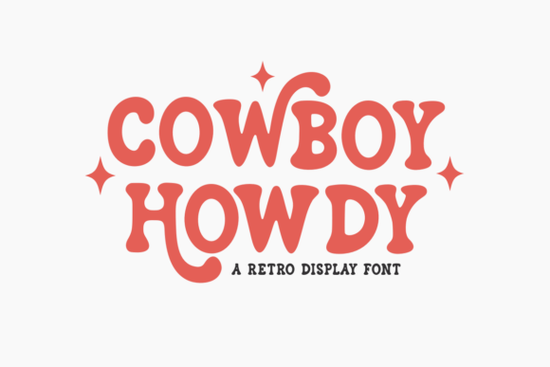
Finding the right western-style typeface can make or break a design. The Cowboy Howdy Font is a handcrafted retro display font with a distinctly rustic personality. It's built for designers, crafters, and small business owners who want their projects to carry that warm, nostalgic feel without looking outdated. Whether you're working on t-shirt designs, branding, or printable wall art, this font offers a solid mix of character and usability.
What makes Cowboy Howdy stand out among retro fonts?
Most retro or western fonts lean heavily on one look either they feel too cartoonish or too stiff. Cowboy Howdy finds a middle ground. Its letterforms have a hand-drawn quality that feels authentic, not overly polished. The curves are slightly imperfect in the best way, giving your text a crafted, human touch.
What really sets it apart is its alternate character feature. When you swap in alternate glyphs, you get subtle variations that keep repeated letters from looking identical. This matters more than people realize, especially in display text where every letter is visible at a large size. A design that says "HOWDY" looks noticeably better when each letter has its own slight variation.
If you're comparing options, fonts like Magic Retro offer a different retro direction more groovy and '70s-inspired while this retro display alternative leans into a bolder, stackable style. Cowboy Howdy, by contrast, is rooted in western Americana, which gives it a more specific mood.
What types of projects does this font work best for?
Cowboy Howdy is a display font, which means it's designed for headlines, titles, and short text not body copy. Here's where it fits naturally:
- T-shirt designs Western-themed or vintage-style tees benefit from its handcrafted look. Phrases like "Rodeo Queen" or "Desert Born" read well in this style.
- Quote prints and wall art Inspirational or farmhouse-style quotes pair nicely with its rustic tone.
- Tote bags and accessories Print-on-demand sellers can use it for seasonal or niche product lines.
- Branding for small businesses Think BBQ restaurants, ranch-style boutiques, country wedding vendors, or outdoor adventure brands.
- Greeting cards and invitations Especially for rustic weddings, country-themed parties, or holiday cards with a nostalgic twist.
For designers building out a collection of western or vintage styles, pairing it with something like this bold retro display option can give you more variety within the same aesthetic range.
How do the alternate characters work?
This is especially useful when you're designing:
- Monograms or single-word logos where every letter is on display
- Short phrases (3–5 words) where visual variety prevents the design from looking flat
- Large-scale prints where letter details are clearly visible
If you've worked with stacked display fonts before, you know how much alternates can change the feel of a design. The same principle applies here a few swapped letters can take a layout from plain to polished.
Which fonts pair well with Cowboy Howdy?
Because Cowboy Howdy has a lot of personality on its own, it pairs best with simple, clean supporting fonts. Here are a few directions worth exploring:
- A clean sans-serif for body text, subtitles, or taglines alongside Cowboy Howdy headlines.
- A simple serif for a more classic, editorial feel in wedding invitations or menu designs.
- A hand-lettered script if you want to keep the handmade aesthetic consistent. Just make sure the script is more delicate than Cowboy Howdy so the two don't compete.
A font like Aaksaraan Valeriana could serve as an elegant script complement, while this elegant option offers a different pairing route depending on your project's mood.
For more western-inspired options in your toolkit, Stacked Remember and Gilligan Karl are both worth a look.
- Check your software make sure it supports OpenType features for accessing alternates.
- Test with your text type out your actual project words before committing. Display fonts can look different depending on the letters used.
- Plan your pairings have at least one clean secondary font ready to balance the design.